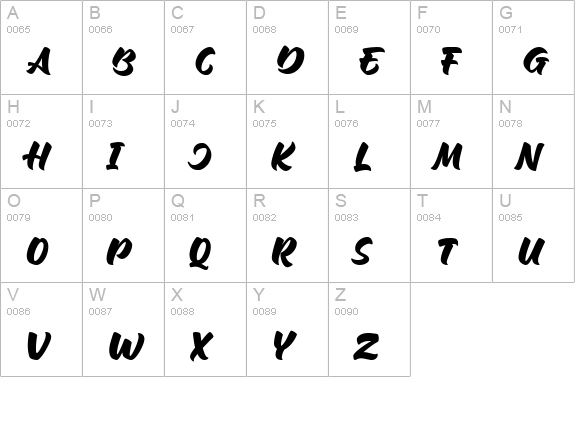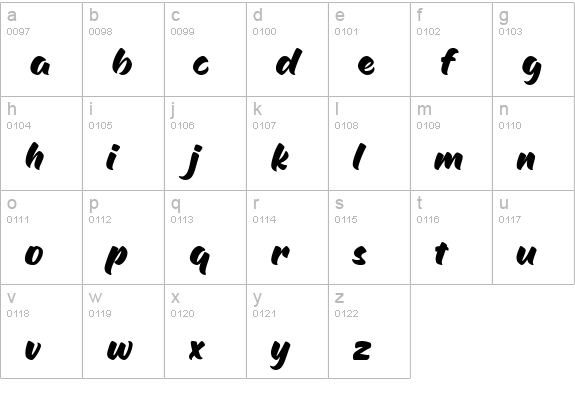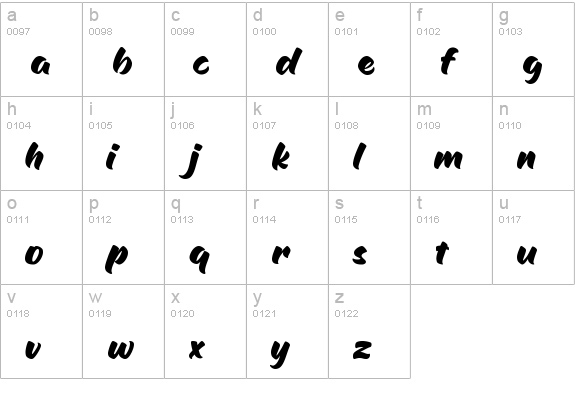
Argiss Font is a free for personal use font in the Script > Handwritten category, designed by hanzel_space. It has been downloaded 70 times and is available for Windows, Mac and Linux.
Argiss Font is a beautifully crafted typeface that exudes elegance and sophistication. With its sleek and modern design, it is perfect for a wide range of creative projects, from branding to editorial design. The clean lines and balanced proportions of Argiss Font make it versatile and easy to read, making it an excellent choice for both print and digital applications.